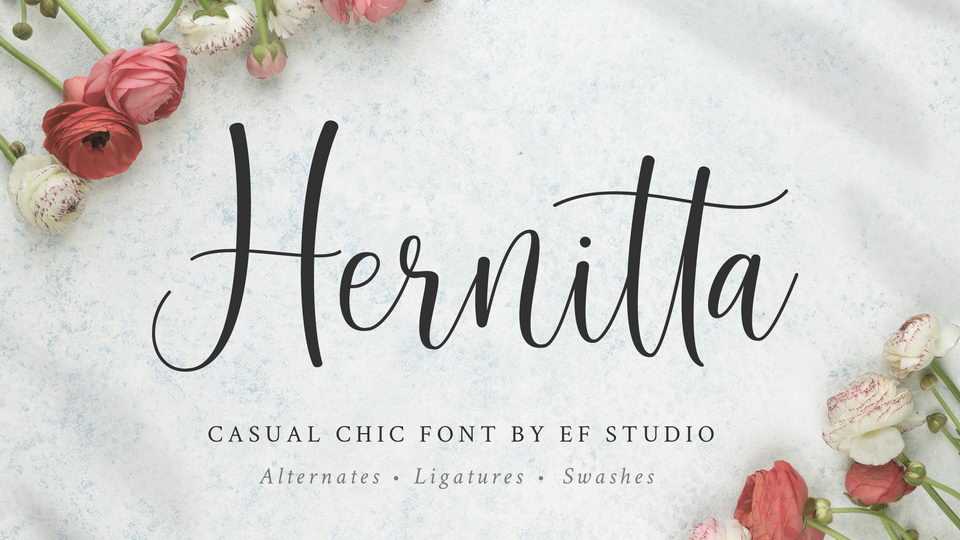
Download Hernitta font, a beautiful modern calligraphy font with many alternative styles, ligatures, swashes and multilingual support. Hernitta looks ideal for wedding decoration, cards, letters, crafts, social media, quotes and other stunning designs.